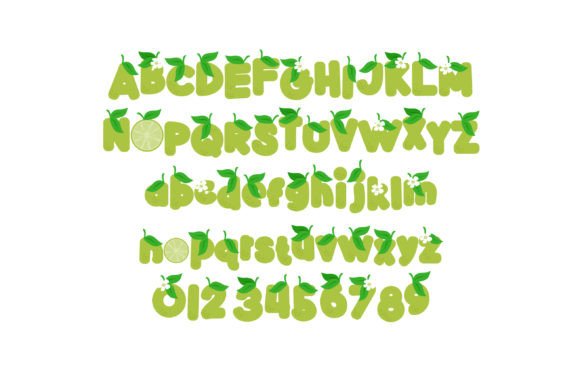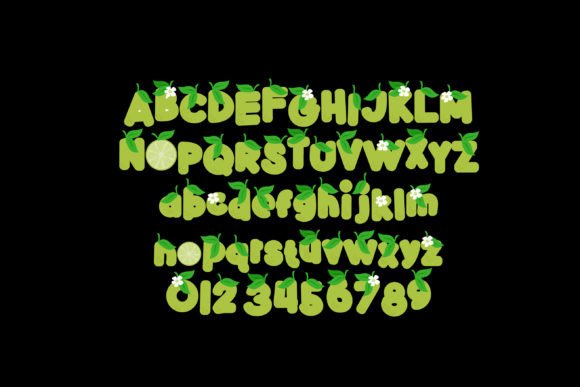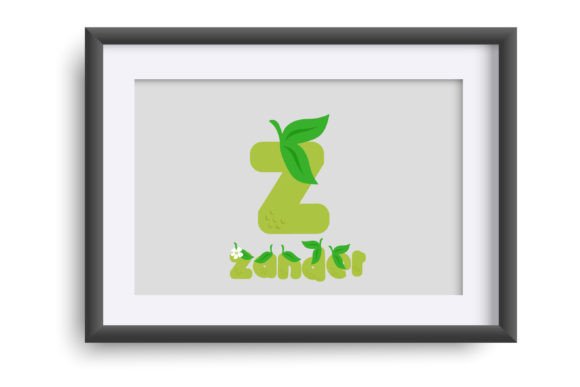
Introduction to Lime Strong Font
This full-color font features fun citrus-like lettering in lime green.
Key Features of Lime Strong Font
Why Choose Lime Strong Font?